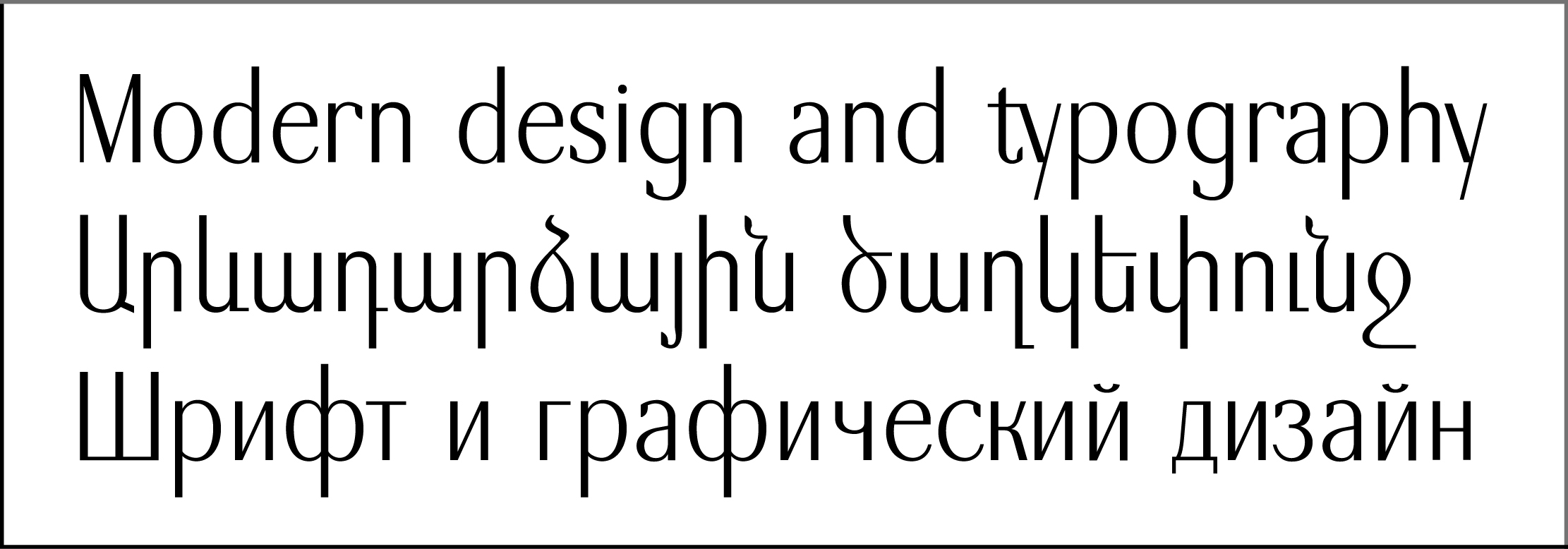
GHEA Komitas
This Light Display font includes Latin 1250, Cyrillic and Armenian language systems and many advanced Ligatures.
Can be used in Posters, Titles and other large size writings.